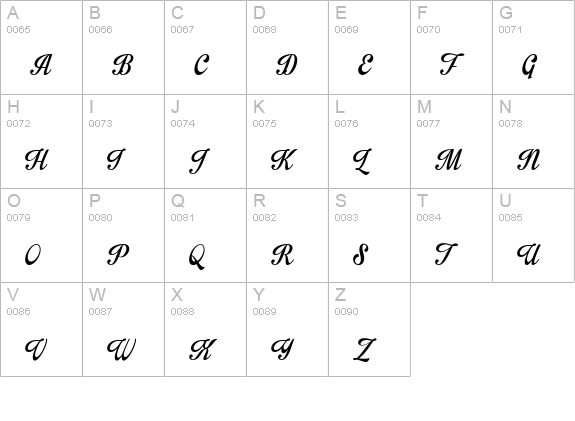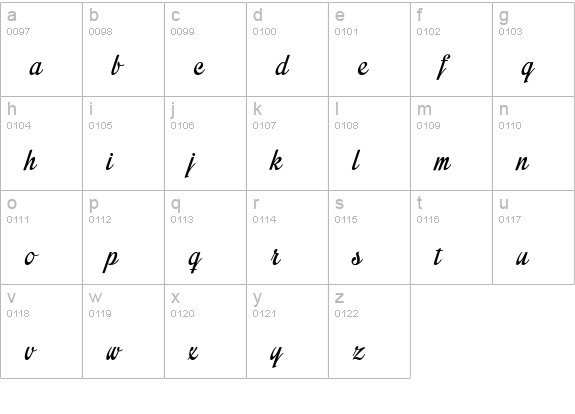
Impregnable Personal Use Only Font Details
Impregnable Personal Use Only is a free for personal use font in the Script > Handwritten category. It has been downloaded 58 times and is available for Windows, Mac and Linux.
Introducing Impregnable Personal Use Only font, a stunning typeface that effortlessly combines elegance and modernity. With its bold and commanding presence, this font is perfect for making a statement in any design project. Whether you're creating eye-catching headlines, designing logos, or crafting stylish invitations, Impregnable Personal Use Only font will leave a lasting impression. What sets this font apart is not only its exceptional aesthetic appeal but also its accessibility. We believe that creativity should be free, which is why we are excited to offer Impregnable Personal Use Only font as a freely available download at FontsMarket.com. Now, you can unleash your imagination without any constraints or limitations. Impregnable Personal Use Only font boasts a unique blend of sharp lines and delicate curves, resulting in a harmonious balance that captivates the eye. Its versatile nature allows it to adapt seamlessly to various design styles, from sleek and modern to rustic and vintage. The carefully crafted letterforms exude confidence, making this font ideal for projects that demand a strong and authoritative presence. The legibility of Impregnable Personal Use Only font is second to none, ensuring that your message is always conveyed with clarity and precision. Each character is meticulously designed to ensure optimal readability, even at smaller sizes or on screens. This ensures that your content remains easily digestible, regardless of the medium or platform. Designed with utmost attention to detail, Impregnable Personal Use Only font offers an extensive character set that includes uppercase and lowercase letters, numbers, punctuation marks, and various special characters. This comprehensive range of glyphs allows you to fully express your creativity and tailor your designs to perfection. Whether you're a professional designer, a hobbyist, or simply someone looking to add a touch of sophistication to their personal projects, Impregnable Personal Use Only font is the ideal choice. Embrace the freedom to create and download this remarkable font today, exclusively at FontsMarket.com. Elevate your designs and captivate your audience with the unmatched elegance and versatility of Impregnable Personal Use Only font.